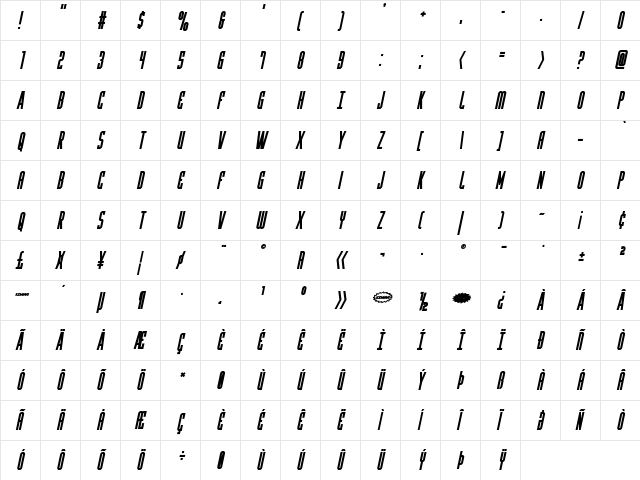
Y-Files Bold Italic Bold Italic
Design Context for Y-Files Bold Italic Typeface
Y-Files Bold Italic takes a measured approach to typography — its balanced proportions and neutral character make it a reliable workhorse for both digital and print work. Its italic angle brings a sense of urgency and motion to the letterforms. Its bold stroke weight gives it real presence on the page.
Pro Tip: Use Y-Files Bold Italic for emphasis, pull quotes, and subheadings where its slanted energy can add rhythm to the layout.